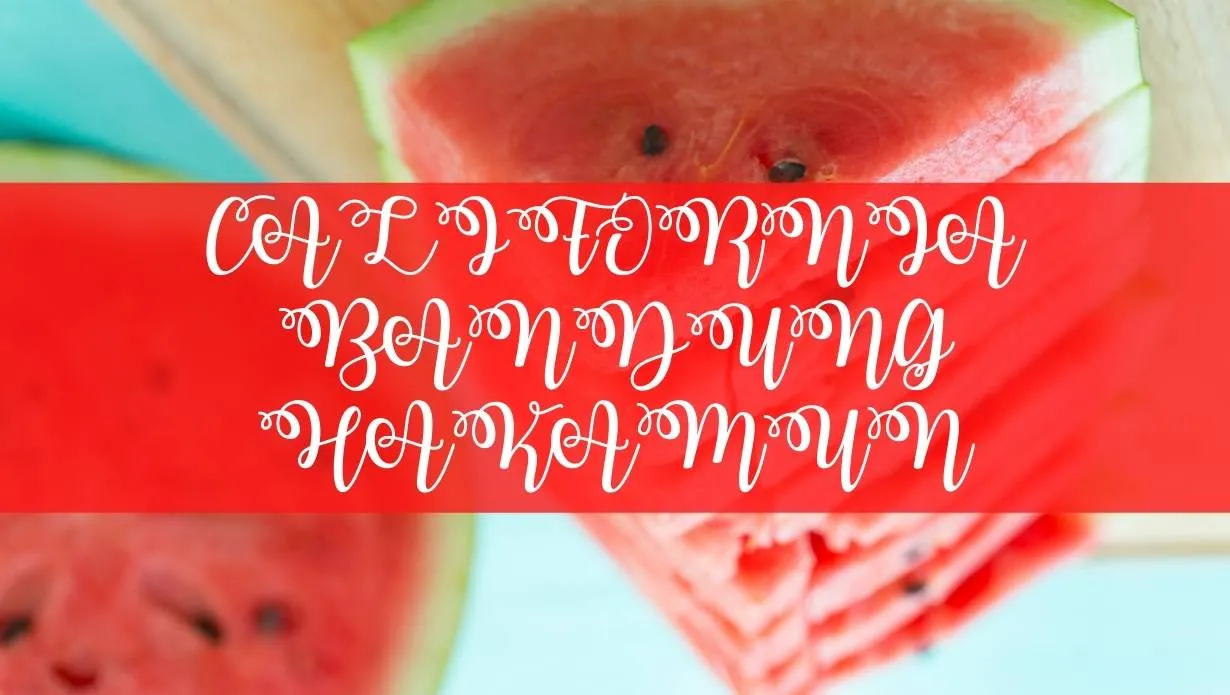
Watermelon Script Font is a fun and unique font that is perfect for summertime projects! This guide will show you how to use this Font in your next project.
This Font is a beautiful and classic font that is perfect for invitations, headers, or even website design. This guide will help you understand everything you need to know about this Font so you can create stunning designs with it.
View of Watermelon Script Font